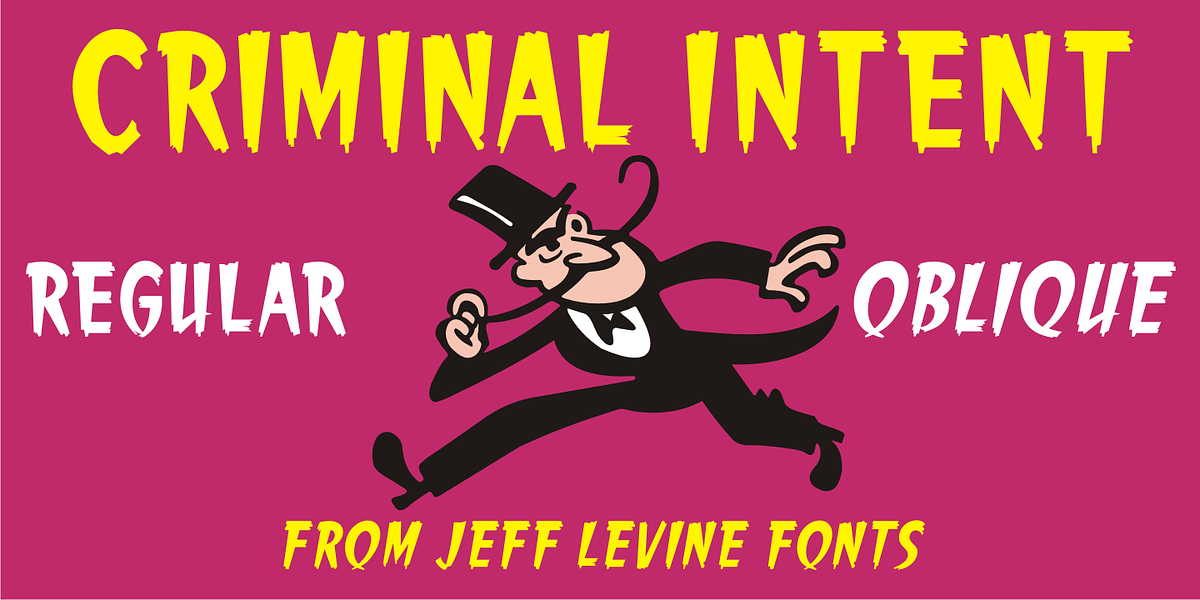
Criminal Intent JNL
The hand lettering found throughout the movie trailer for 1942’s “Mr. and Mrs. North” inspired Criminal Intent JNL, which is available in both regular and oblique versions.